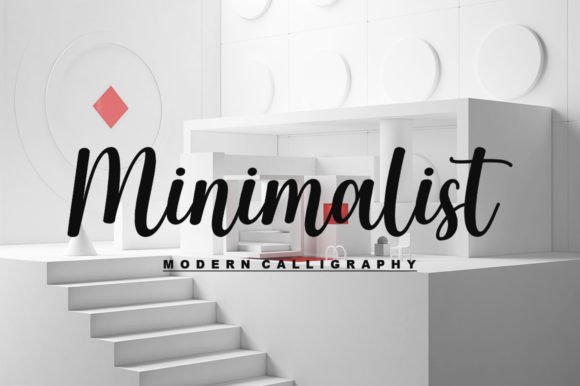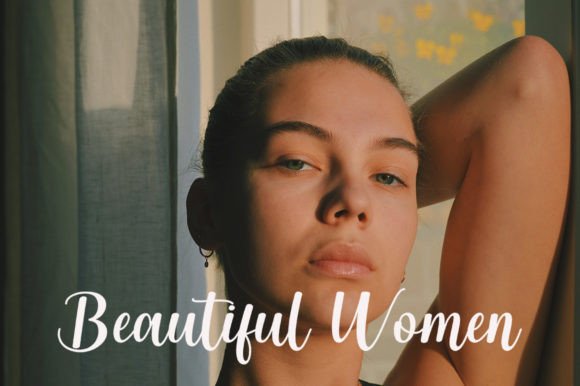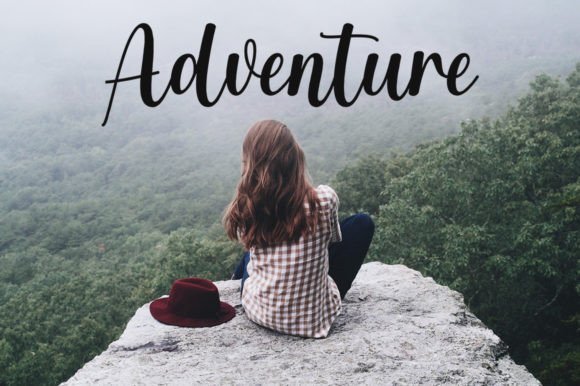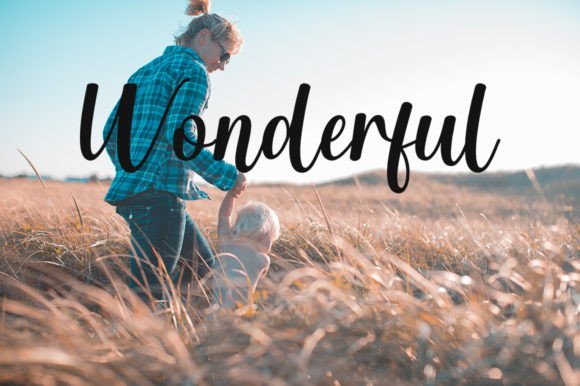
About Minimalist Font Download
The Minimalist Font Download is a sweet and delicate handwritten script designed to add elegance and romance to your projects. With dainty strokes and a joyful handwritten style, it creates a personal and inviting touch. Because it is PUA encoded, you can access all glyphs and ligatures with ease, making it highly versatile for designers and hobbyists alike.
A Delicate Handwritten Script with Elegance
Minimalist combines soft handwritten beauty with modern usability. Unlike heavy or complex fonts, this Minimalist script font maintains a clean and graceful look. As a result, it is perfect for projects where a personal, romantic, and stylish feel is required.
Handwritten fonts always make invitations and cards more meaningful. The Minimalist Font is excellent for wedding stationery, engagement announcements, thank you notes, and birthday cards. Moreover, its dainty strokes add warmth and sophistication to every message.
Branding and Packaging with Minimalist Font
Typography has a powerful effect on brand identity. The Minimalist handwritten font is a great choice for boutique logos, product packaging, and promotional materials. In addition, it creates a modern yet elegant character that resonates with today’s audiences.
Posters, Titles, and Display Designs
Large-scale projects such as posters, banners, and signage demand fonts that stand out while staying stylish. The Minimalist Font Download performs beautifully in both big and small formats. Therefore, it is a flexible choice for designers looking to create polished displays.
In today’s digital-first environment, fonts must work well across platforms. The Minimalist typeface is ideal for Instagram posts, YouTube thumbnails, Pinterest graphics, and blog headers. Its delicate handwritten look ensures that digital content feels warm and engaging.
Why Designers Choose Minimalist Typeface
Designers appreciate fonts that balance personality with practicality. Many handwritten scripts lose clarity at smaller sizes, but the Minimalist handwritten script stays readable while keeping its graceful character. This makes it a reliable option for both professionals and hobbyists.
Add Romantic Elegance to Your Projects Today
If you are looking for a handwritten script that feels delicate, sweet, and versatile, the Minimalist Font Download is the right choice. From wedding invitations and greeting cards to branding and social media graphics, it brings a romantic and joyful touch to any design. Finally, download Minimalist today and make your creative work shine with elegance.